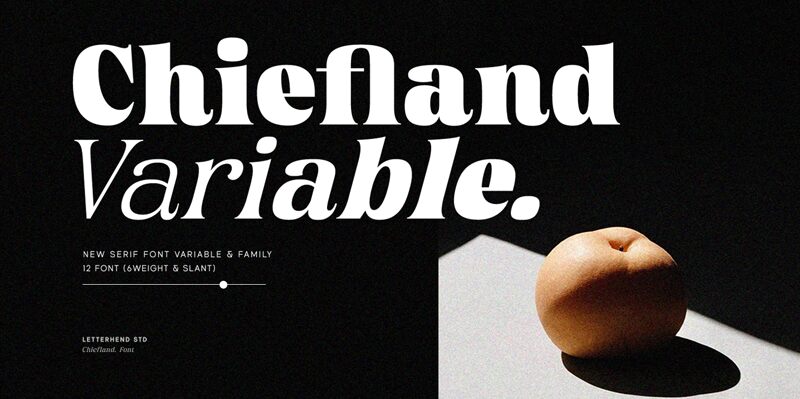
Chiefland Bold, a captivating serif font from Letterhend Studio, exudes confidence and elegance.
Its bold weight commands attention and makes it perfect for branding projects that aim to leave a lasting impression. With its timeless charm, Chiefland Bold is also well-suited for editorial designs such as magazine layouts or book covers. Whether used in headlines or body text, this font brings sophistication to any project.
Embrace the power of Chiefland Bold to elevate your designs and captivate your audience with its striking presence.